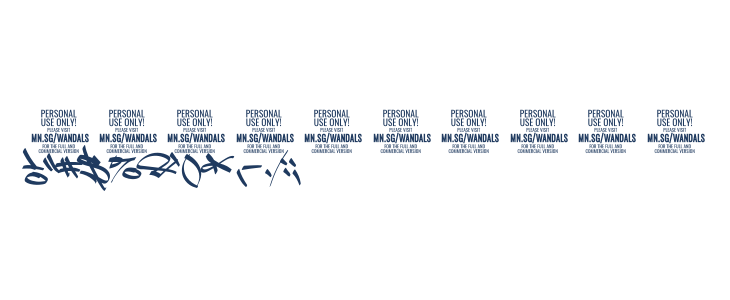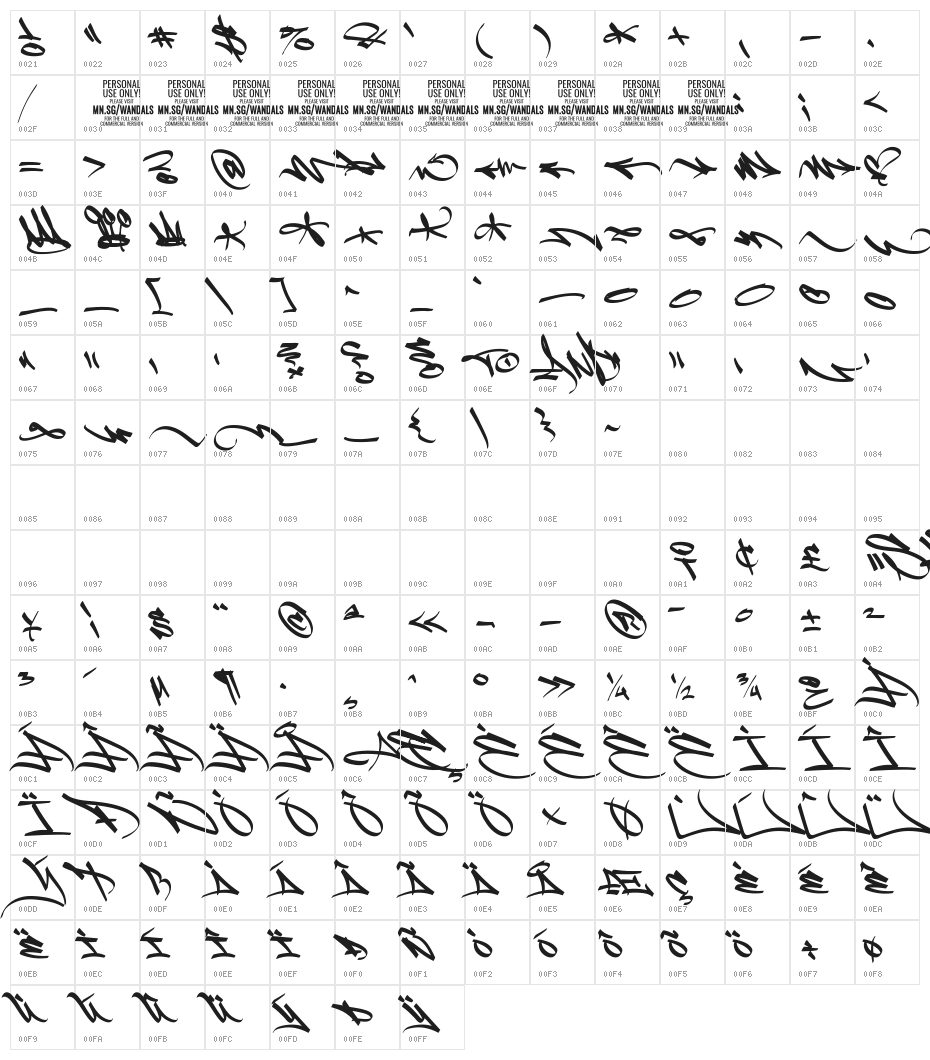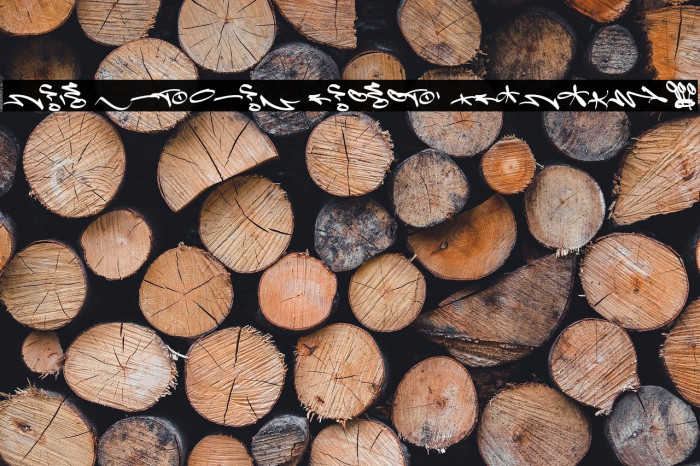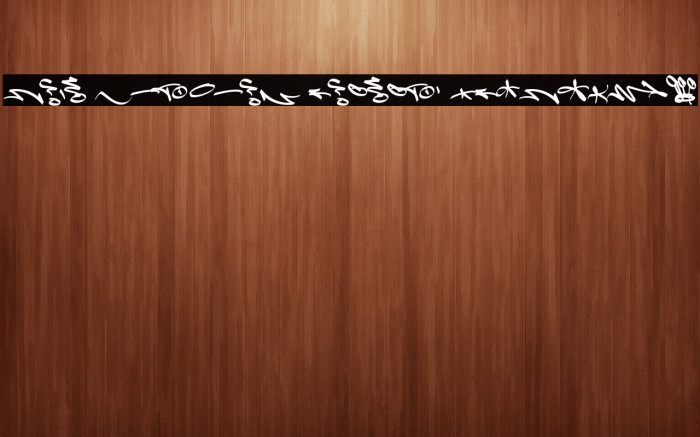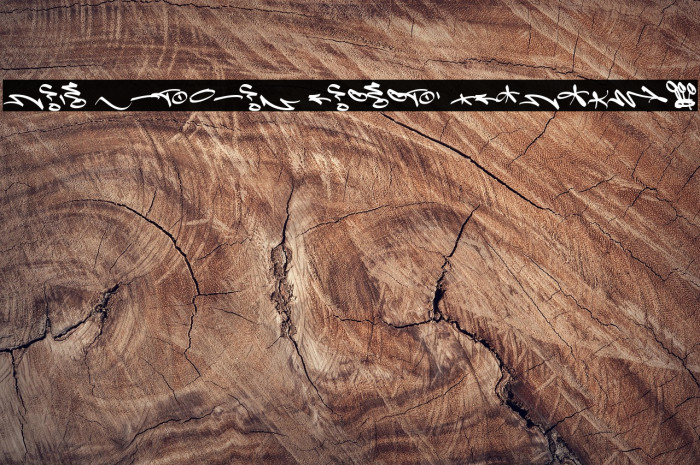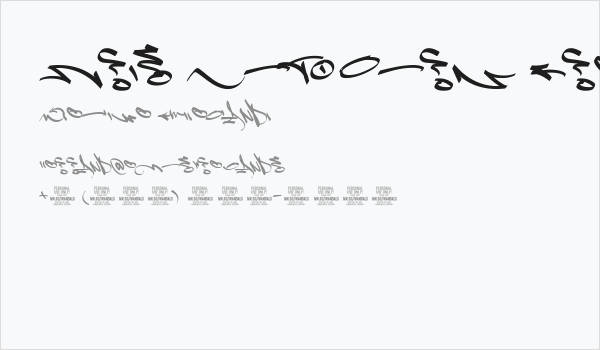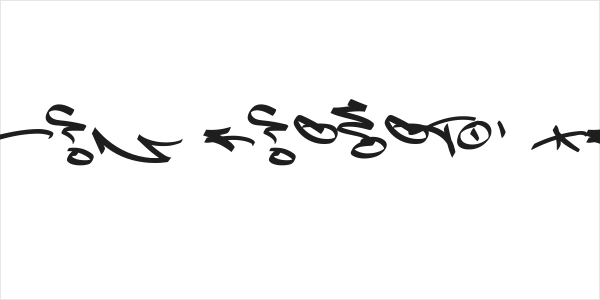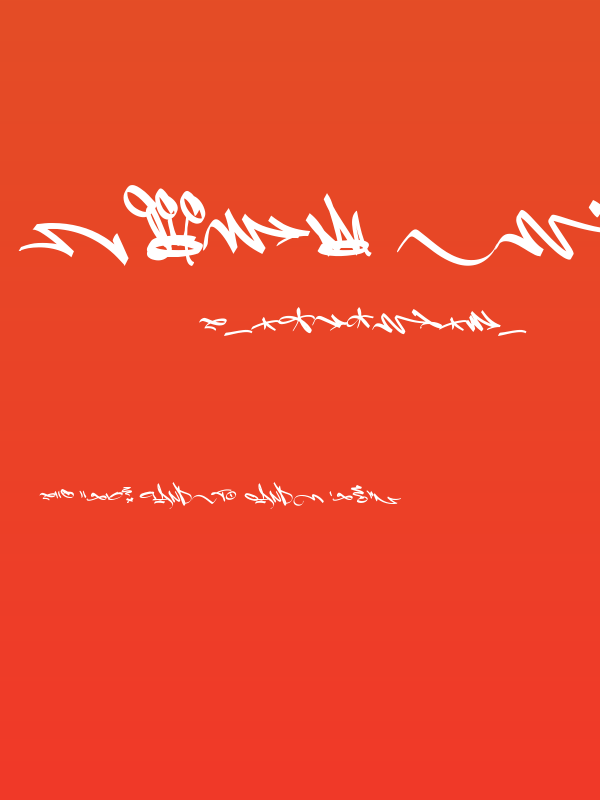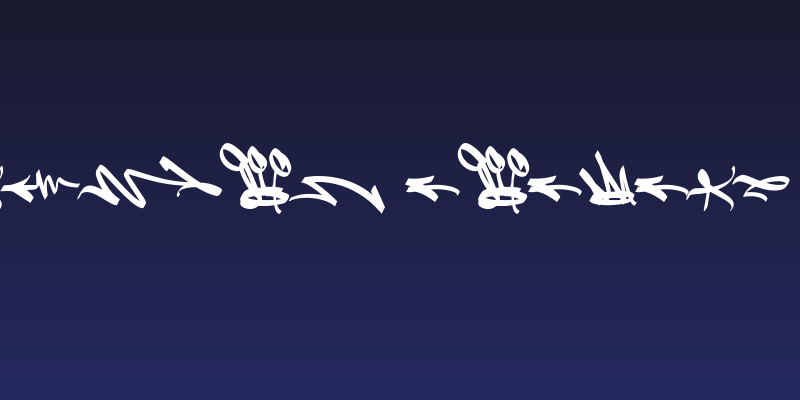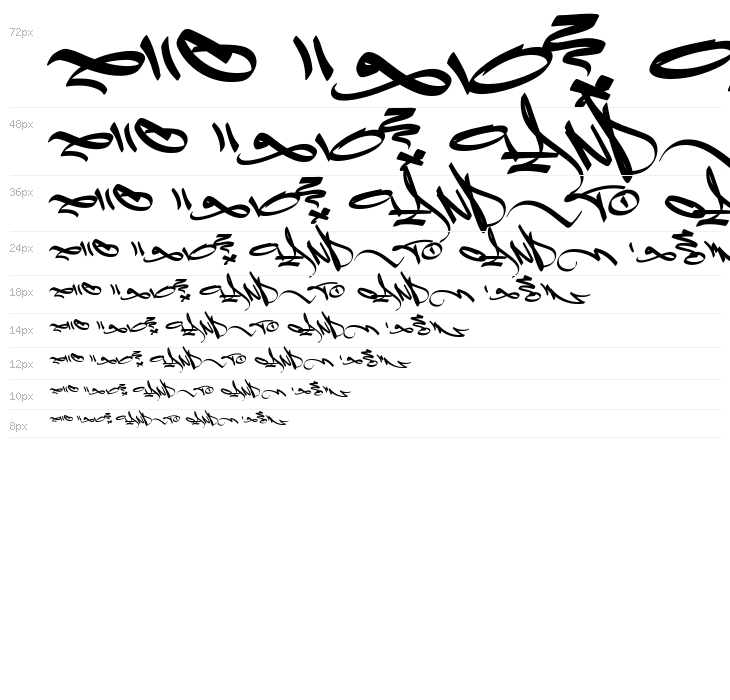
Slim Wandals Element PERSONAL Font
Slim Wandals Element PERSONAL Description
This font presents a highly decorative and abstract style, characterized by its intricate and swirling forms. It resembles graffiti or street art, with each character appearing as a unique piece of art rather than a traditional letterform. The strokes are bold and dynamic, with a sense of movement and energy. The characters are not easily distinguishable as standard letters or numbers, making it more suitable for artistic or decorative purposes rather than readability. The overall appearance is edgy and modern, appealing to those looking for a font that makes a strong visual statement.
| Use Case | Logos, Artistic designs, Posters |
| Proposed Projects | Ideal for street art projects, urban-themed designs, album covers, or any creative work requiring a bold and artistic touch. |